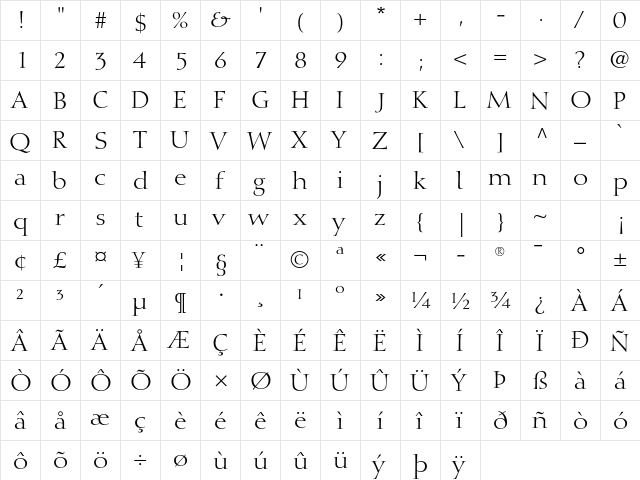
Diotima LT Std Roman
| Designer | Gudrun Zapf von Hesse |
Design Context for Diotima LT Std Typeface
Diotima LT Std offers clean, dependable letterforms without strong stylistic allegiance, making it a practical choice for designers who need flexibility. The delicate stroke weight brings airiness and refinement to layouts.